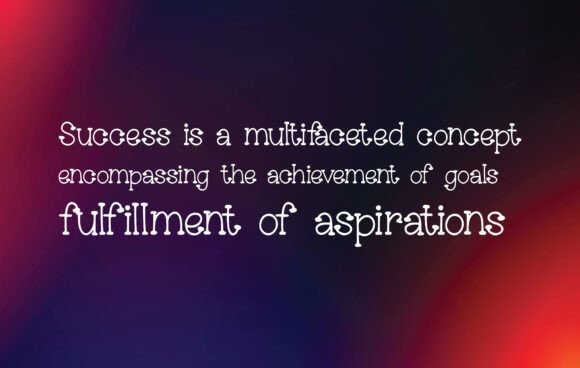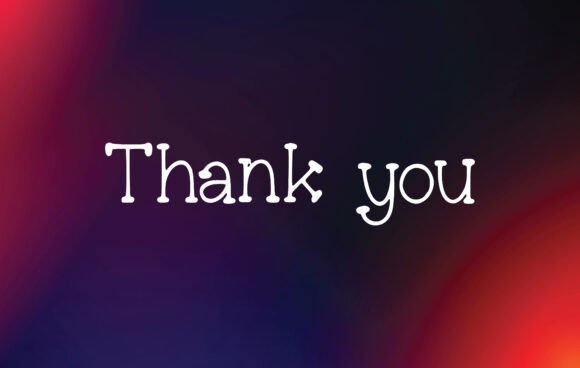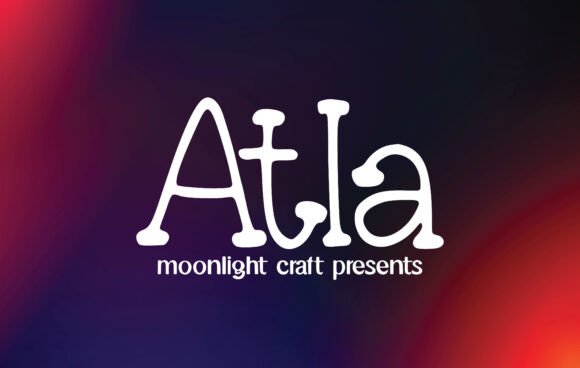
Introducing Atla Font: Your New Go-To for Creative Projects
Are you tired of using the same old fonts for your creative projects? Look no further than Atla Font, a versatile and eye-catching typeface designed to bring your ideas to life. With its clarity and ease of readability, Atla Font is perfect for a wide range of applications, from titles and body text to designs that require a personal touch.
What Makes Atla Font Stand Out?
Atla Font is crafted with the modern designer and crafter in mind. Its unique characteristics make it an excellent choice for various projects, including:
• Magazine Covers: Grab attention with a bold and stylish font that’s sure to make your magazine stand out on newsstands.
• T-Shirts: Create eye-catching designs for apparel that will make your brand or message pop.
• Social Media Posts: Elevate your online presence with visually appealing text that complements your content.
• Branding: Establish a consistent visual identity with a font that exudes style and professionalism.
• Wedding Invitations: Add a touch of elegance and sophistication to your wedding stationery.
• Greeting Cards: Make your cards more personal and special with a font that’s both clear and charming.
Why Choose Atla Font?
Atla Font is designed to be a go-to favorite among designers and crafters. Here are just a few reasons why:
• Versatility: Atla Font is suitable for a wide range of projects, from digital designs to print materials.
• Readability: Its clear and clean design makes it easy to read, even at smaller font sizes.
• Style: Atla Font has a unique personality that adds a touch of style to any design.
Tips for Using Atla Font Effectively
To get the most out of Atla Font, consider the following tips:
• Experiment with Sizes: Atla Font looks great in various sizes, from large titles to smaller body text.
• Play with Colors: Try different colors to see how they affect the overall look and feel of your design.
• Mix and Match: Combine Atla Font with other fonts to create a unique and visually appealing design.
Who Can Benefit from Atla Font?
Atla Font is perfect for:
• Graphic Designers: Looking for a versatile font to add to their toolkit.
• Crafters: Creating handmade products, such as wedding invitations, greeting cards, and other paper crafts.
• Small Business Owners: Seeking to establish a strong brand identity.
• Social Media Influencers: Wanting to elevate their online presence with stylish text.
Atla Font is a versatile and eye-catching typeface that’s perfect for designers and crafters looking to add a touch of style to their creative projects. With its clarity, readability, and unique personality, Atla Font is sure to become a go-to favorite in your font collection. Whether you’re working on a magazine cover, t-shirt design, social media post, or wedding invitation, Atla Font is the perfect choice.
Get Ready to Bring Your Ideas to Life with Atla Font